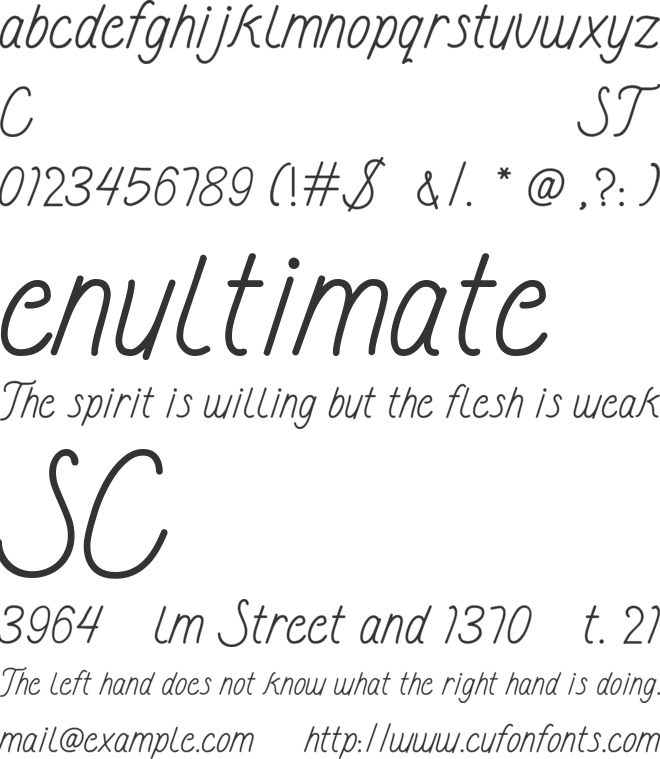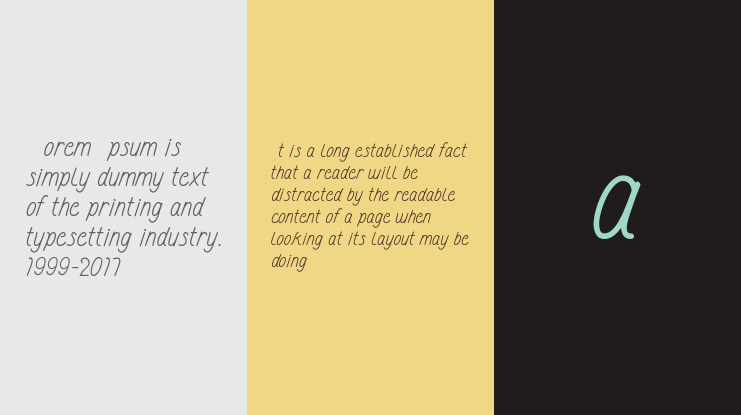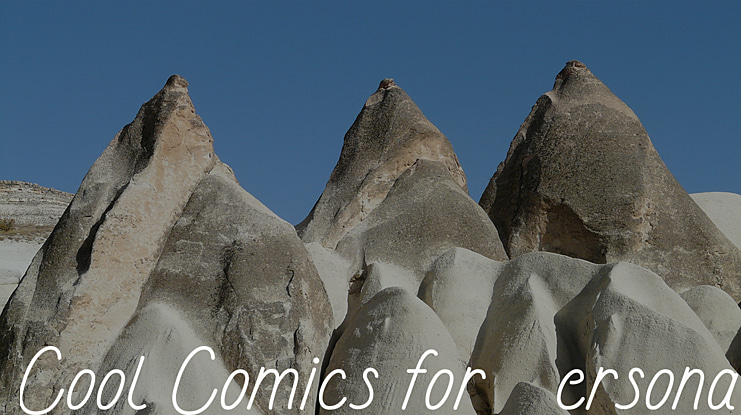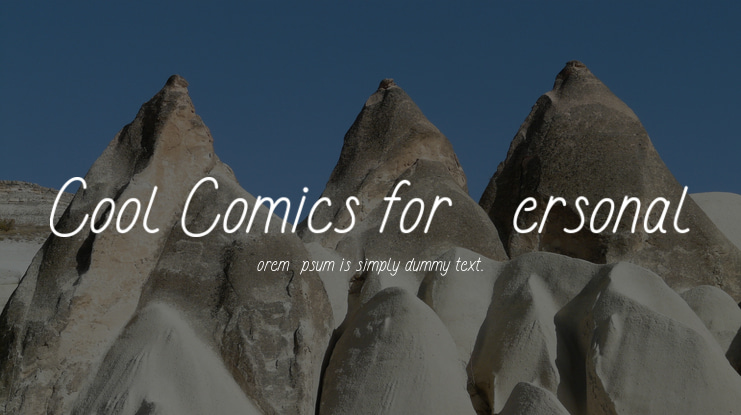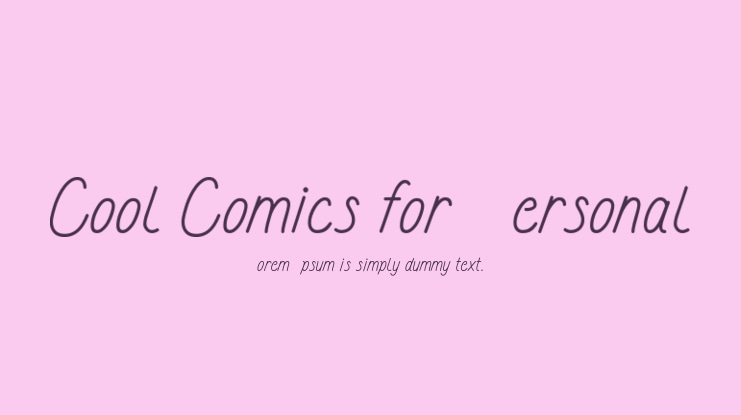
Cool Comics for Personal Font
Cool Comics Sans Serif Fonts is an elegant and futuristic sans serif font with a light feel. Use it to add a modern touch to any design project!